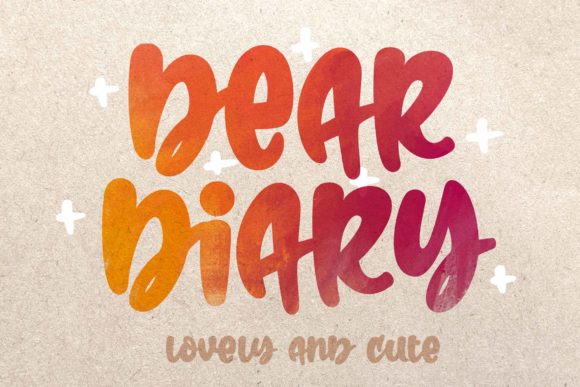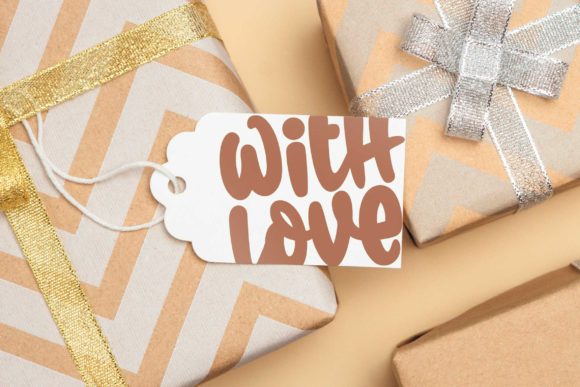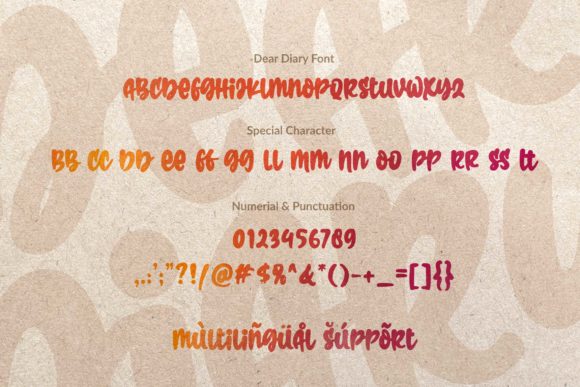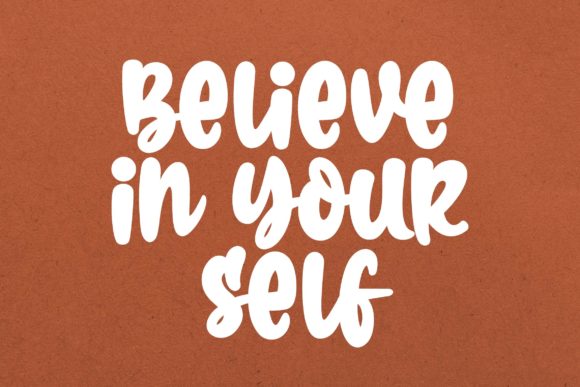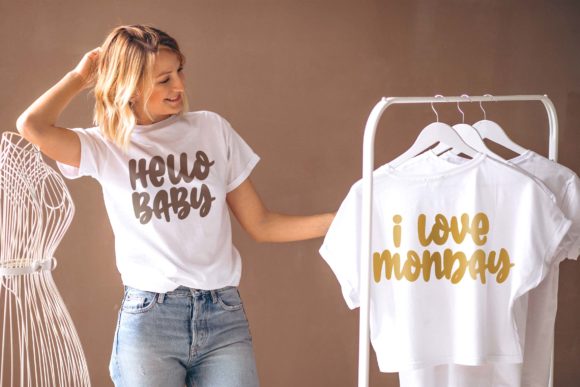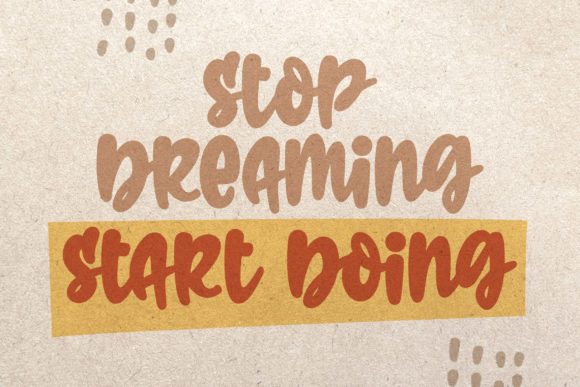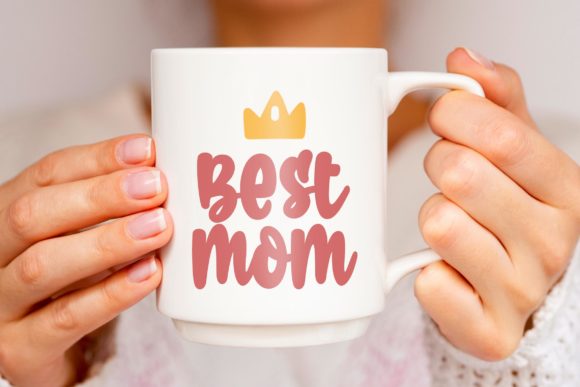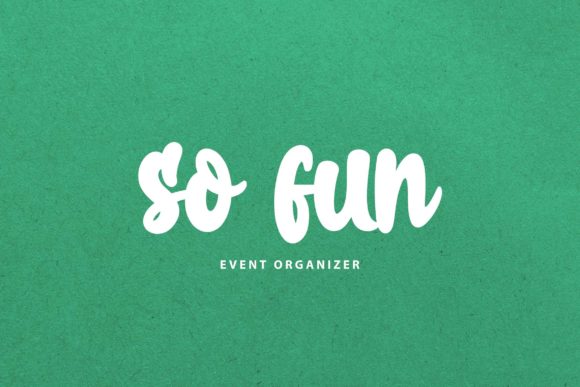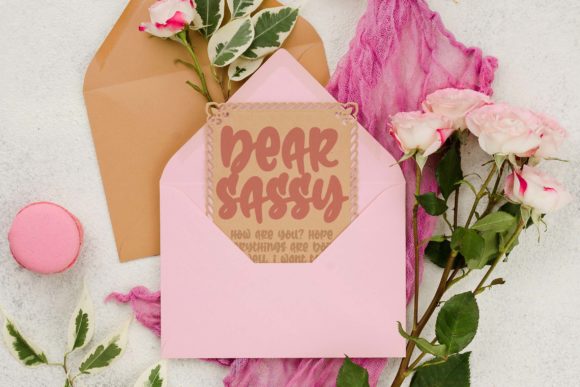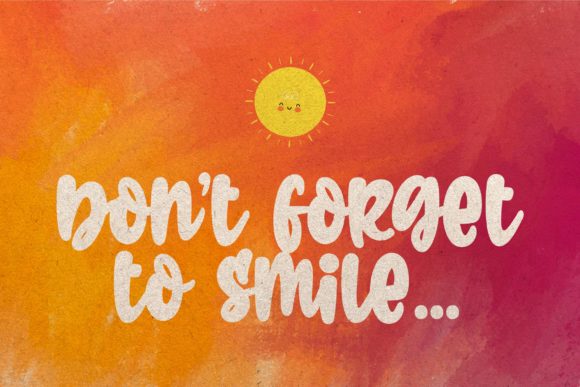
Dear Diary Font
About Dear Diary Font
Dear Diary is a cute and bold handwritten font. This all-caps font will look outstanding in any context, whether it’s being used on busy backgrounds or as a standalone headline!